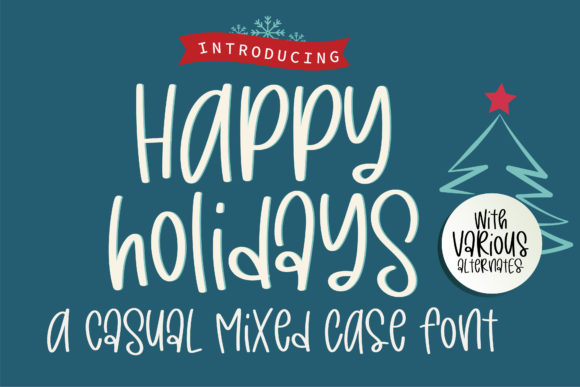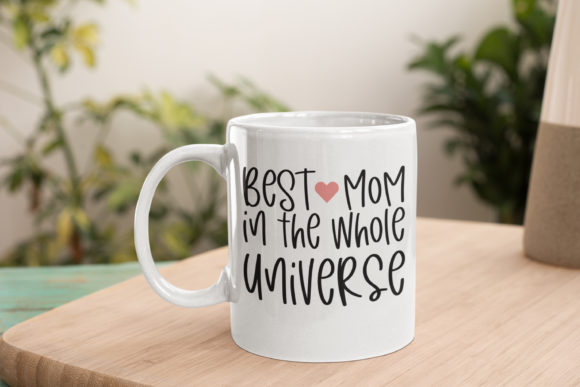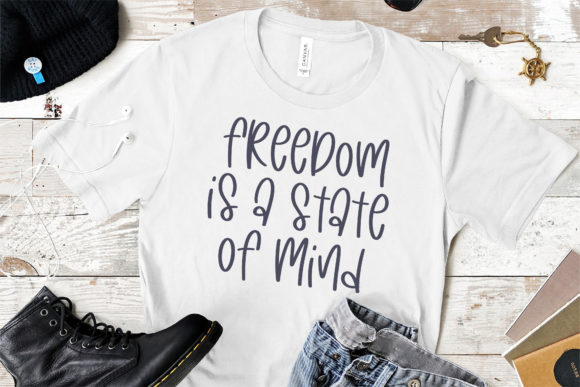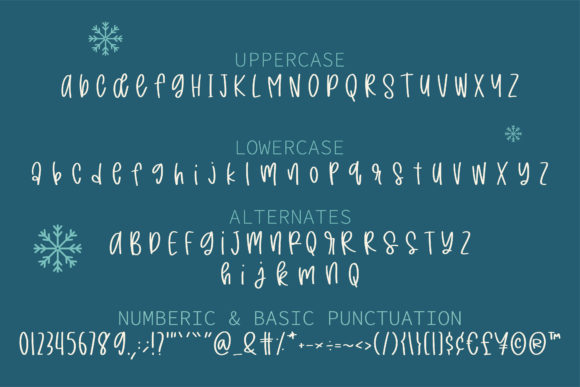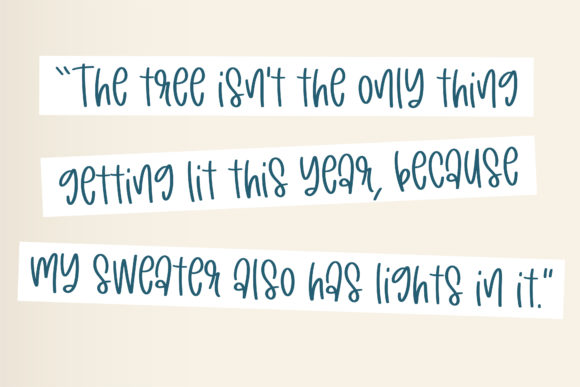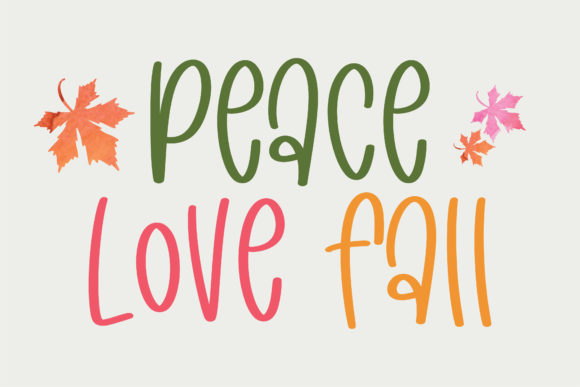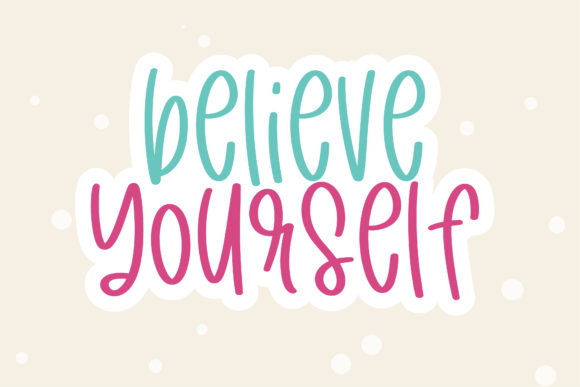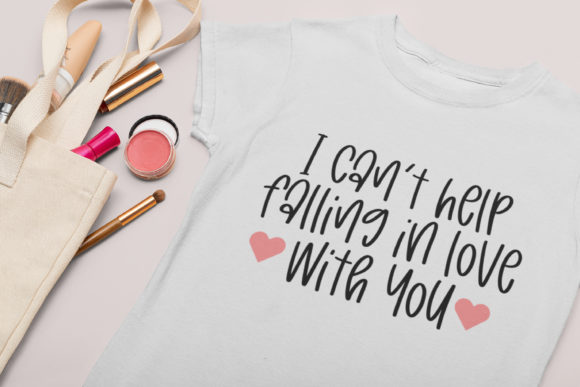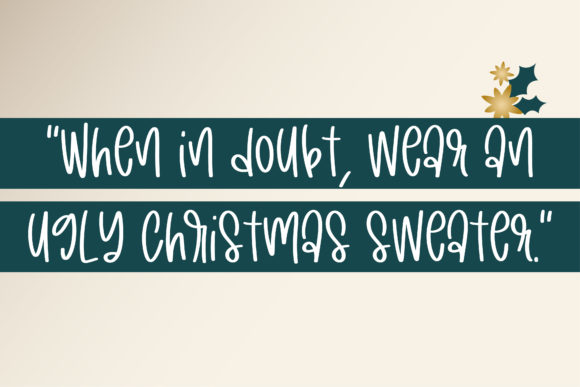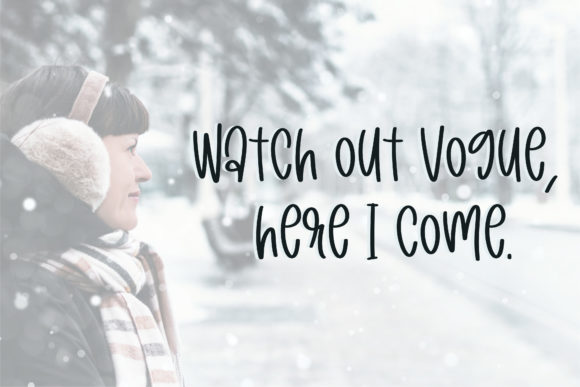
Happy Holidays Font
About Happy Holidays Font
Happy Holidays is a casual handwritten font. Its natural and unique style makes it incredibly fitting to a large pool of designs. The only limit is your imagination!